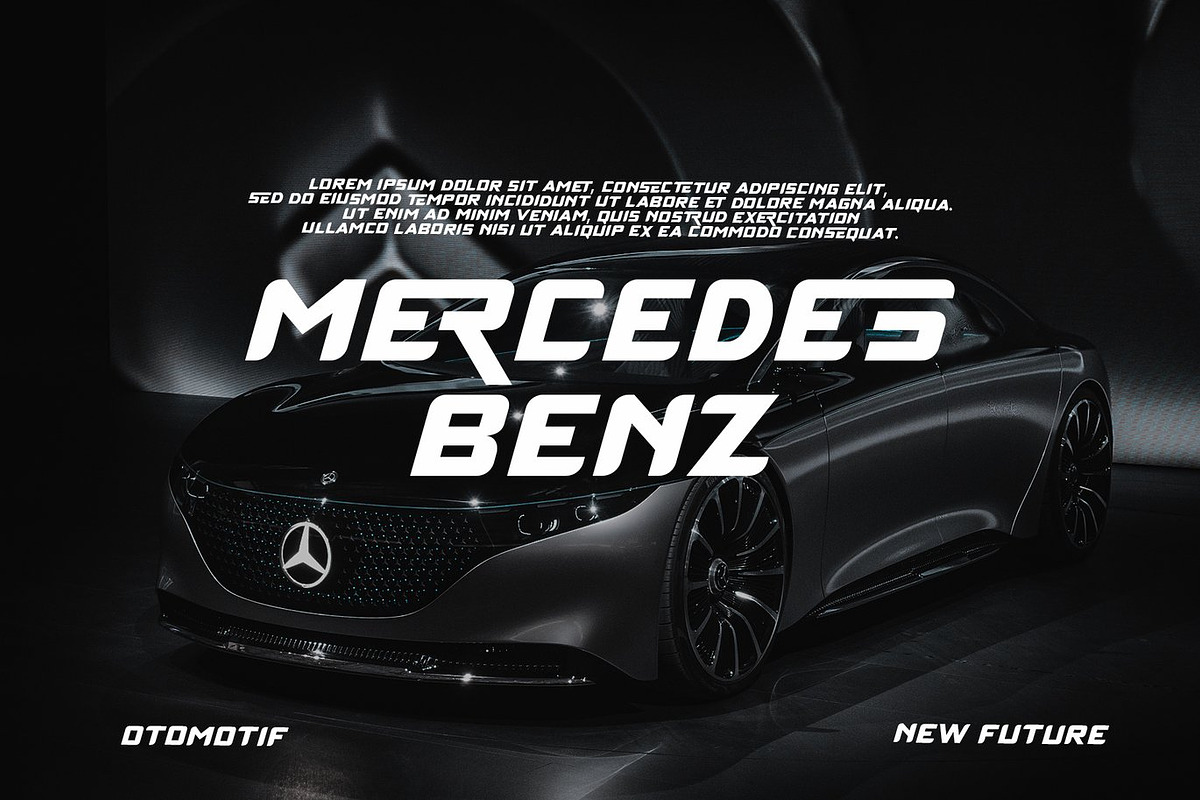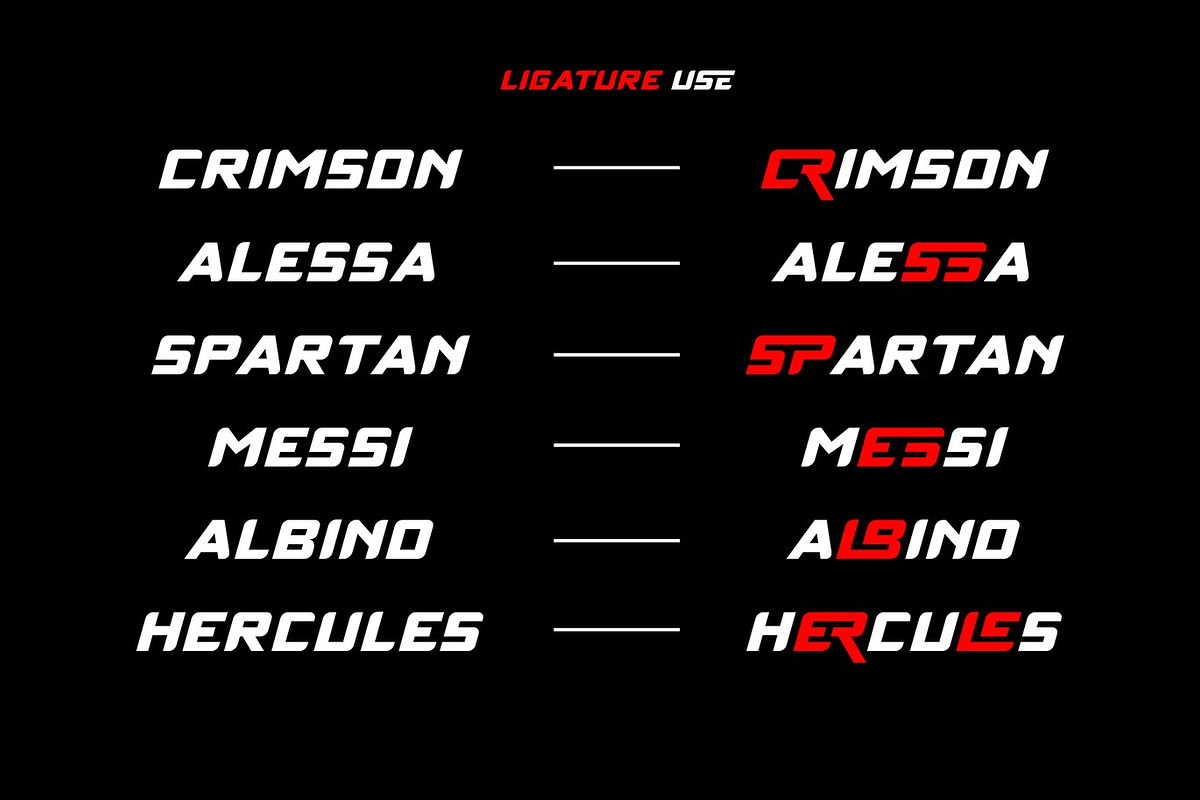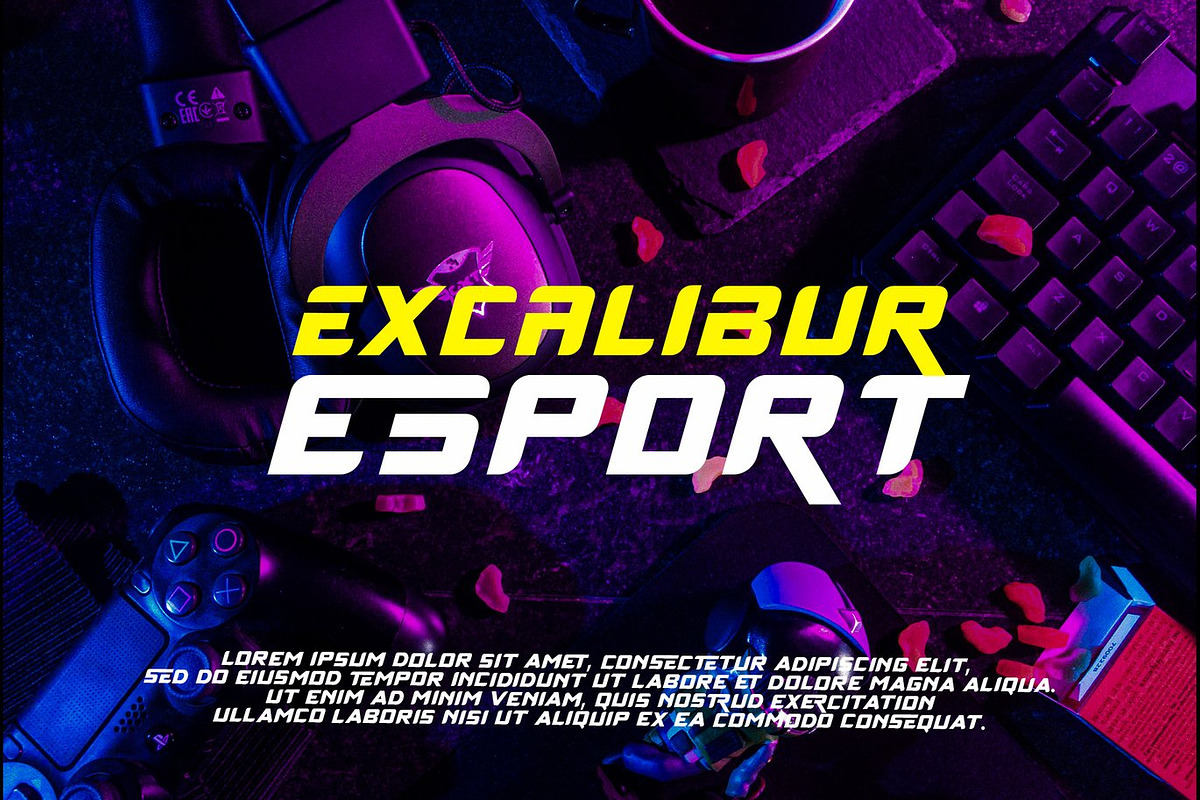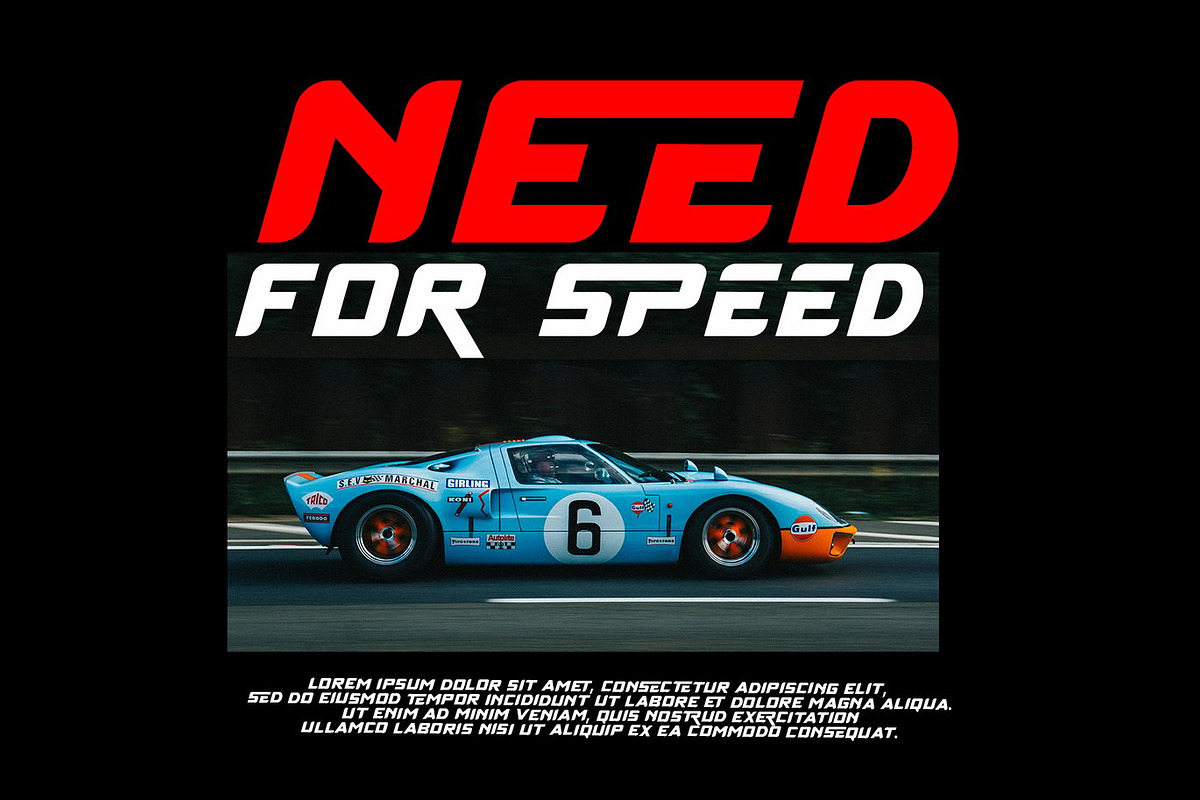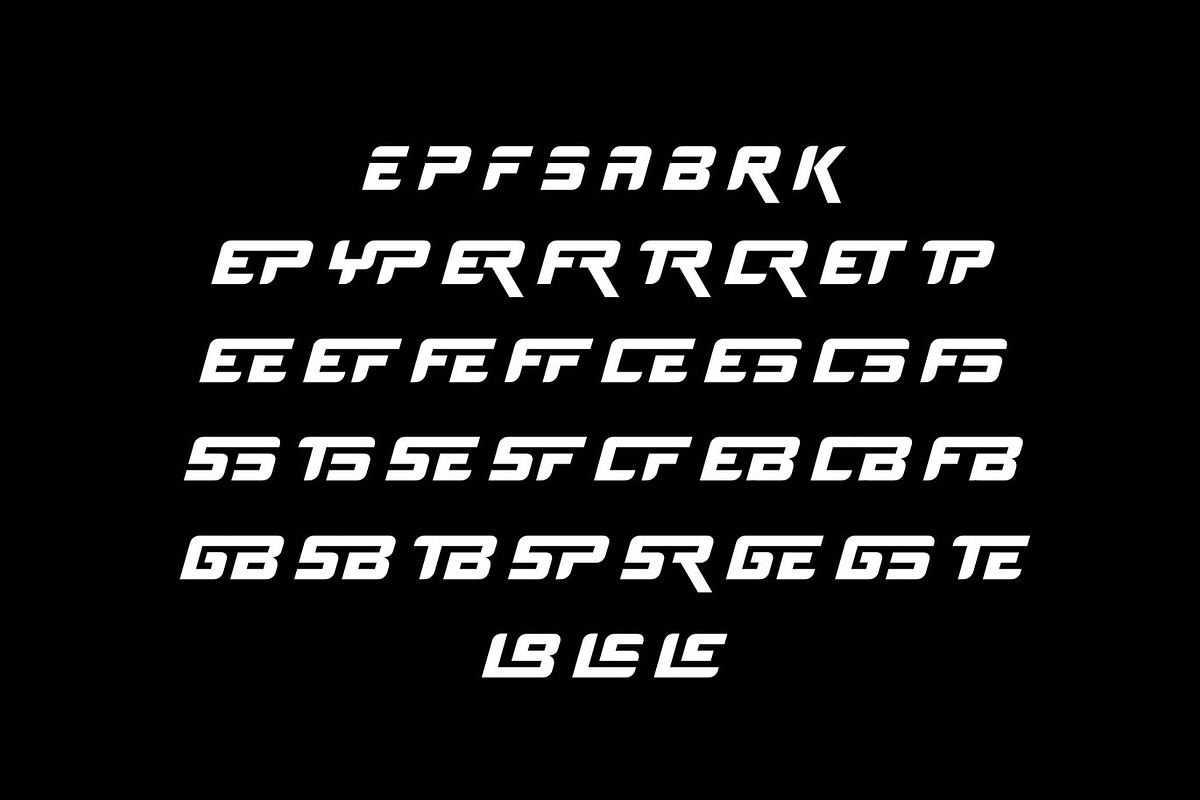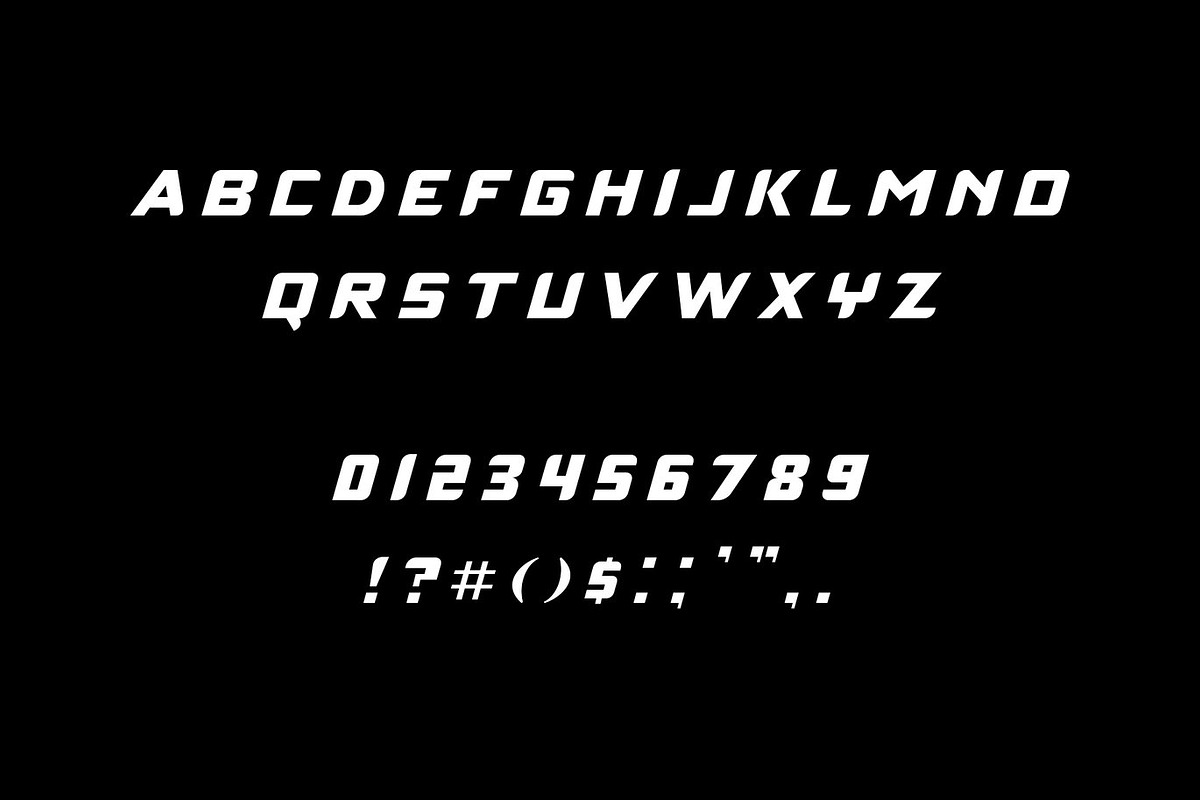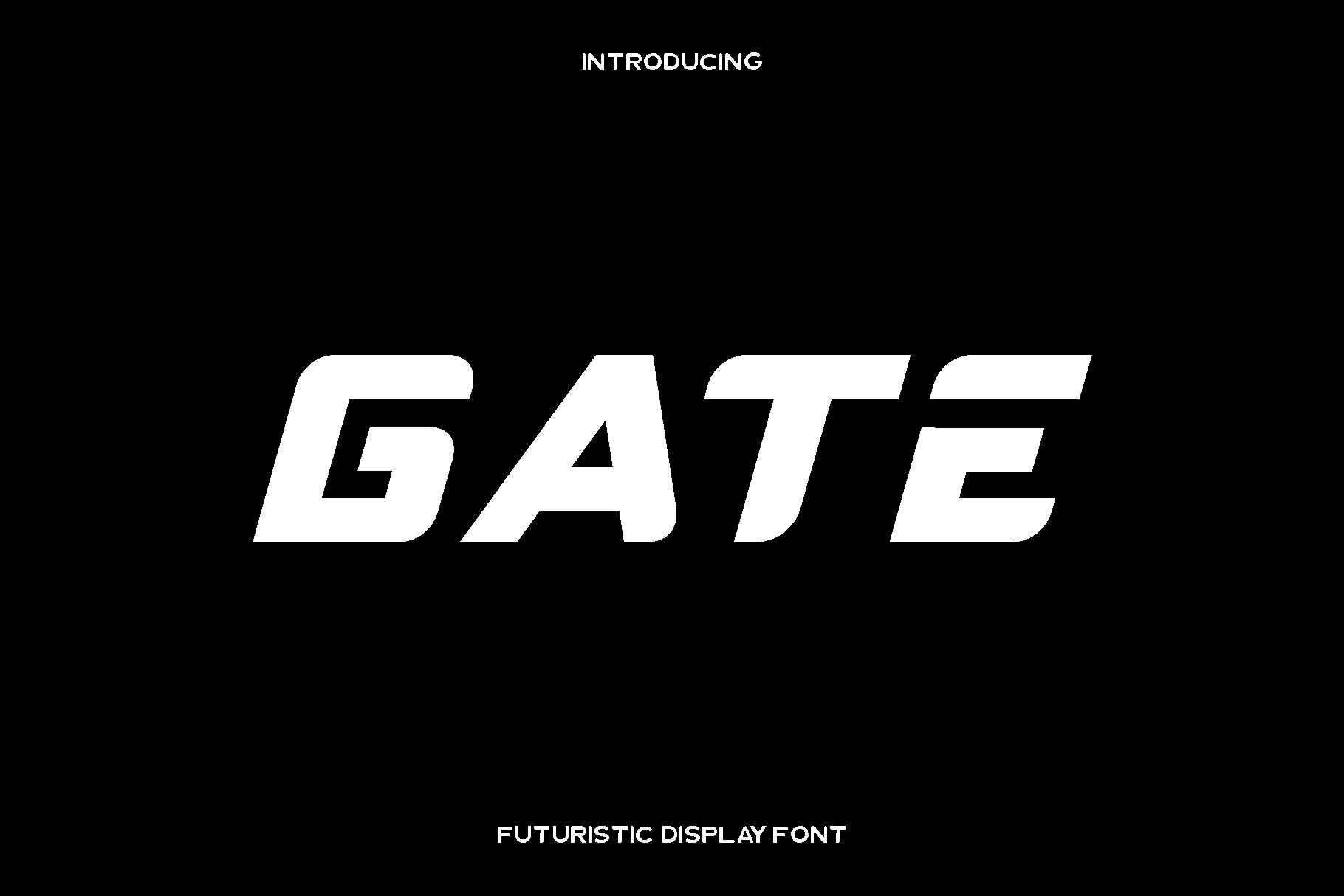
Gate - Futuristic Display Font
Gate is a sleek and modern display font designed to bring a bold, futuristic edge to your creative projects. With its sharp angles, clean lines, and distinctive geometric forms, Gate delivers a modern aesthetic that immediately captures attention. This font embodies innovation and forward-thinking design, making it a perfect choice for projects that aim to stand out in digital and print spaces.
Gate excels in web design, branding, business cards, posters, product packaging, and any design that demands a unique and contemporary typographic voice. Its futuristic appeal makes headlines, titles, and logos feel energetic, modern, and visually striking. The font’s versatility ensures it adapts seamlessly to various creative applications while maintaining clarity and impact.
Every letter of Gate has been crafted with precision to combine style and readability, offering designers a font that is both functional and visually exciting. Its unique alternates and ligatures add flexibility for custom design touches, while its full uppercase, numeric, and multilingual support expand its usability across global projects.
Gate Futuristic Display Font Features:
• All caps characters
• Numeric and functional glyphs
• Alternate characters and ligatures
• Multilingual support for multiple languages
Gate is the ideal choice for designers looking to create modern, bold, and futuristic designs that leave a lasting impression.